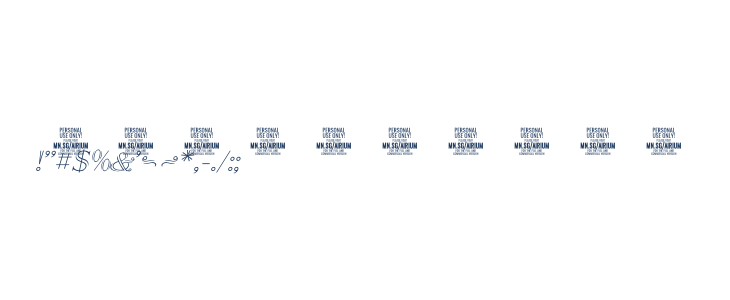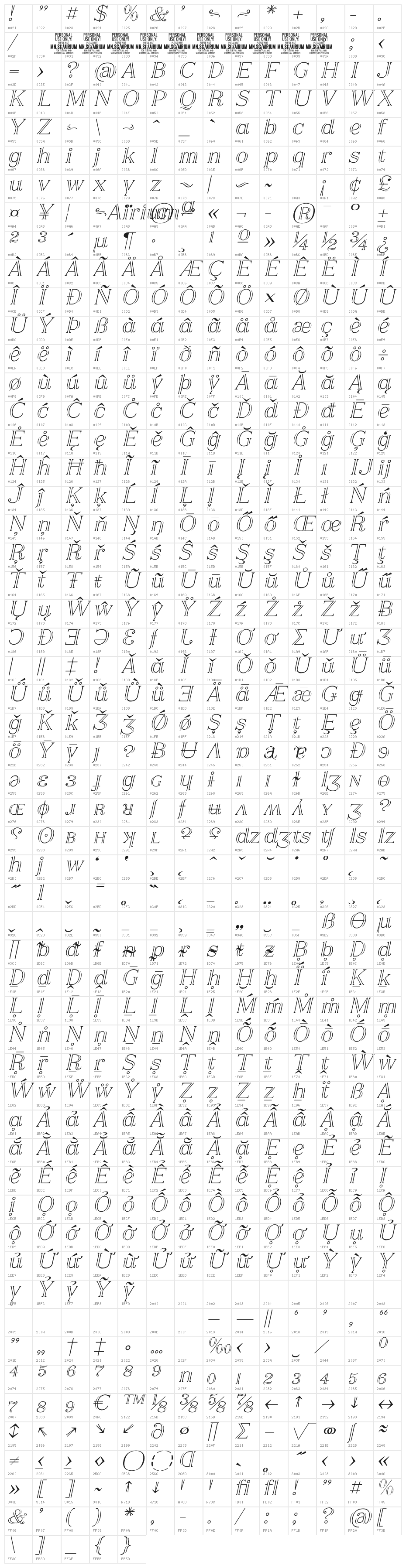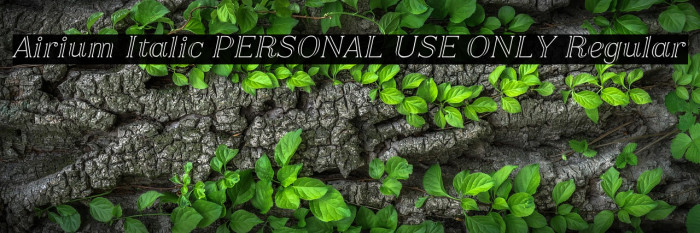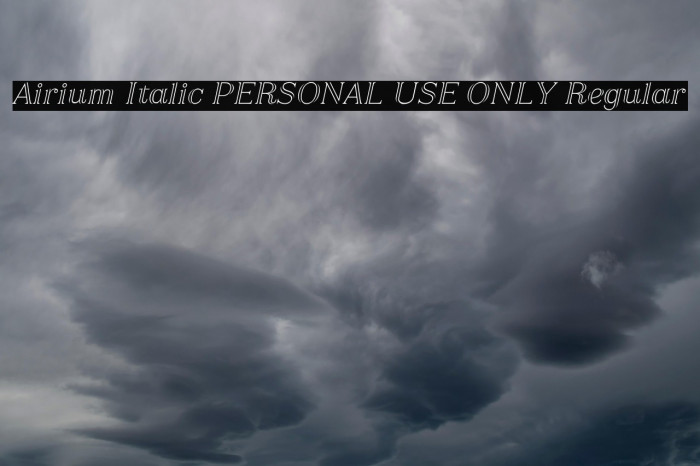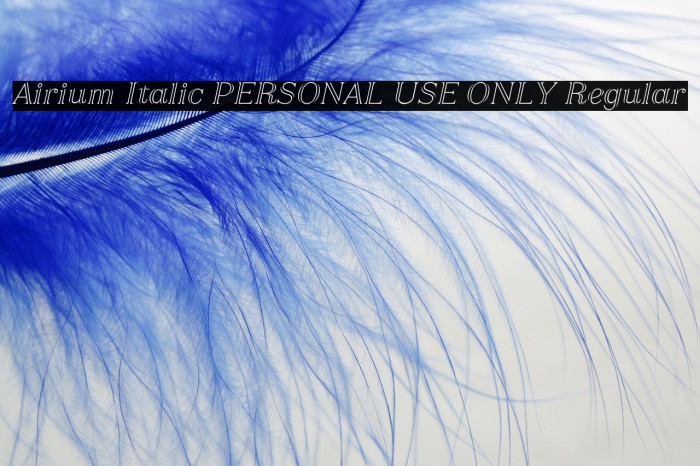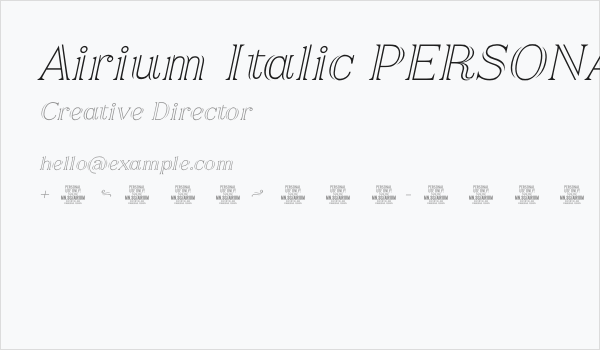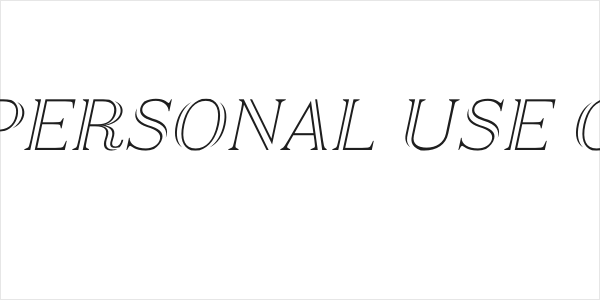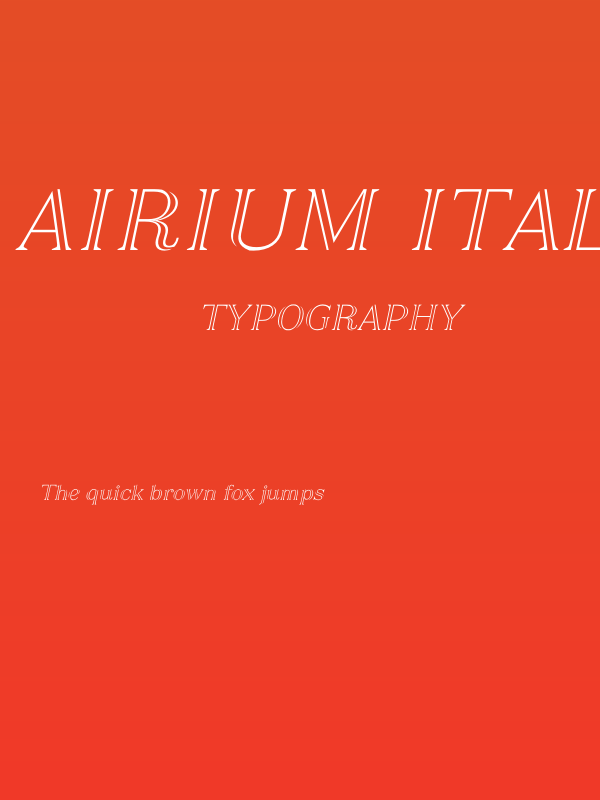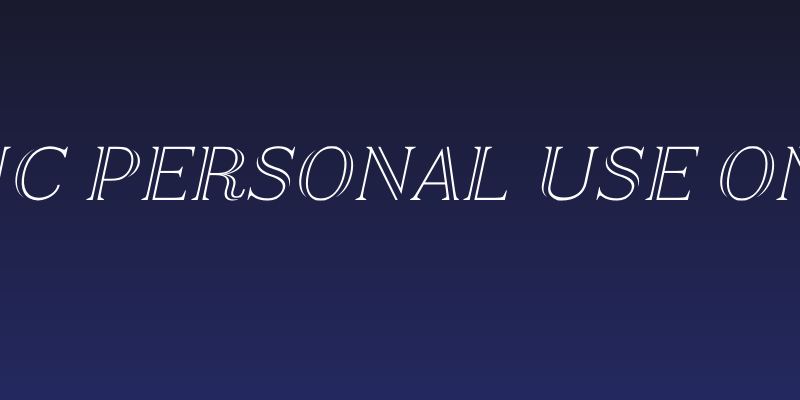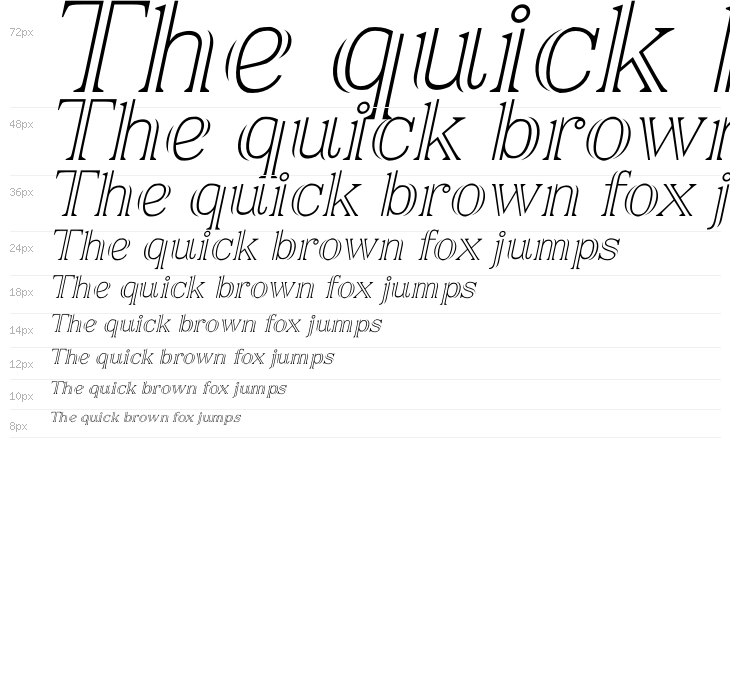
Airium Italic PERSONAL USE ONLY Regular Font
Airium Italic PERSONAL USE ONLY Regular Description
This elegant font features a sophisticated italic style with a modern twist. The characters are designed with a slight slant, giving them a dynamic and fluid appearance. The strokes are thin and delicate, yet they maintain a sense of clarity and readability. The uppercase letters exhibit a refined and graceful form, while the lowercase letters complement them with a subtle charm. Special characters are thoughtfully crafted to match the overall aesthetic, making this font suitable for a variety of creative applications.
| Overall Style | Modern, Elegant |
| Use Case | Headlines, Invitations, Branding |
| Proposed Projects | Ideal for wedding invitations, elegant branding, fashion magazines, and artistic posters. |